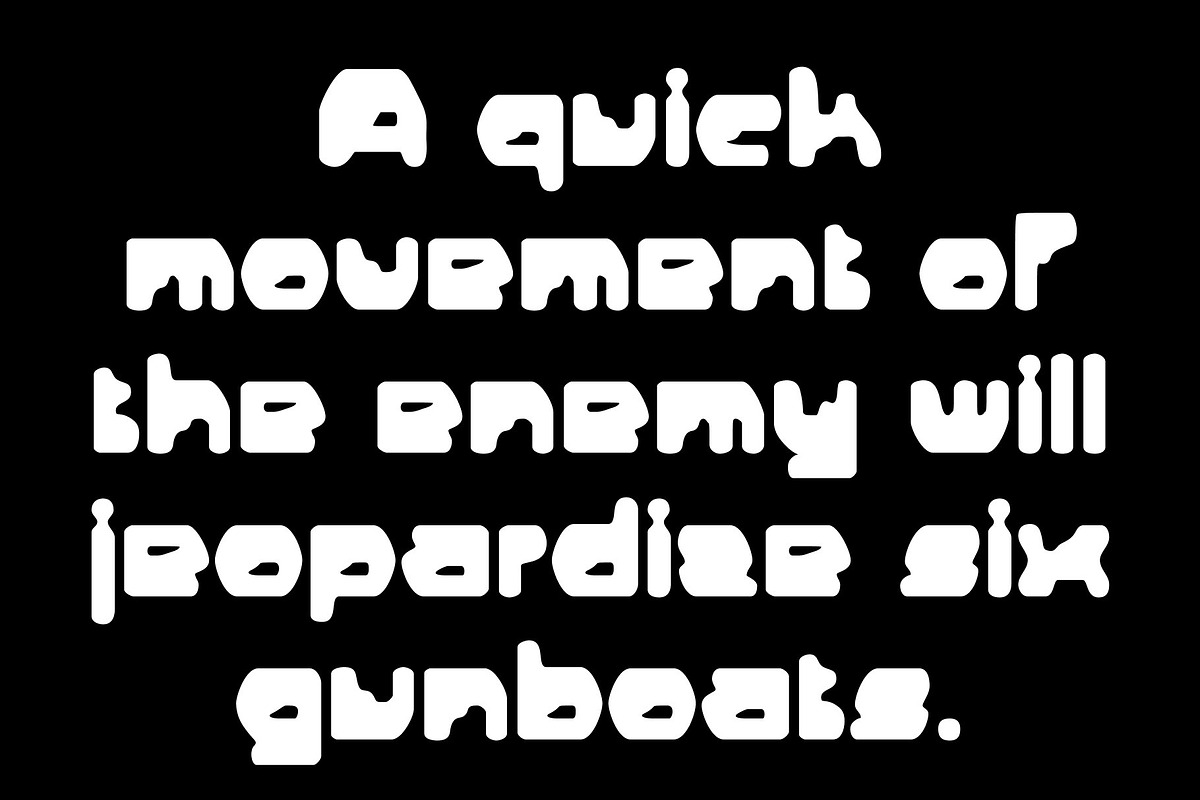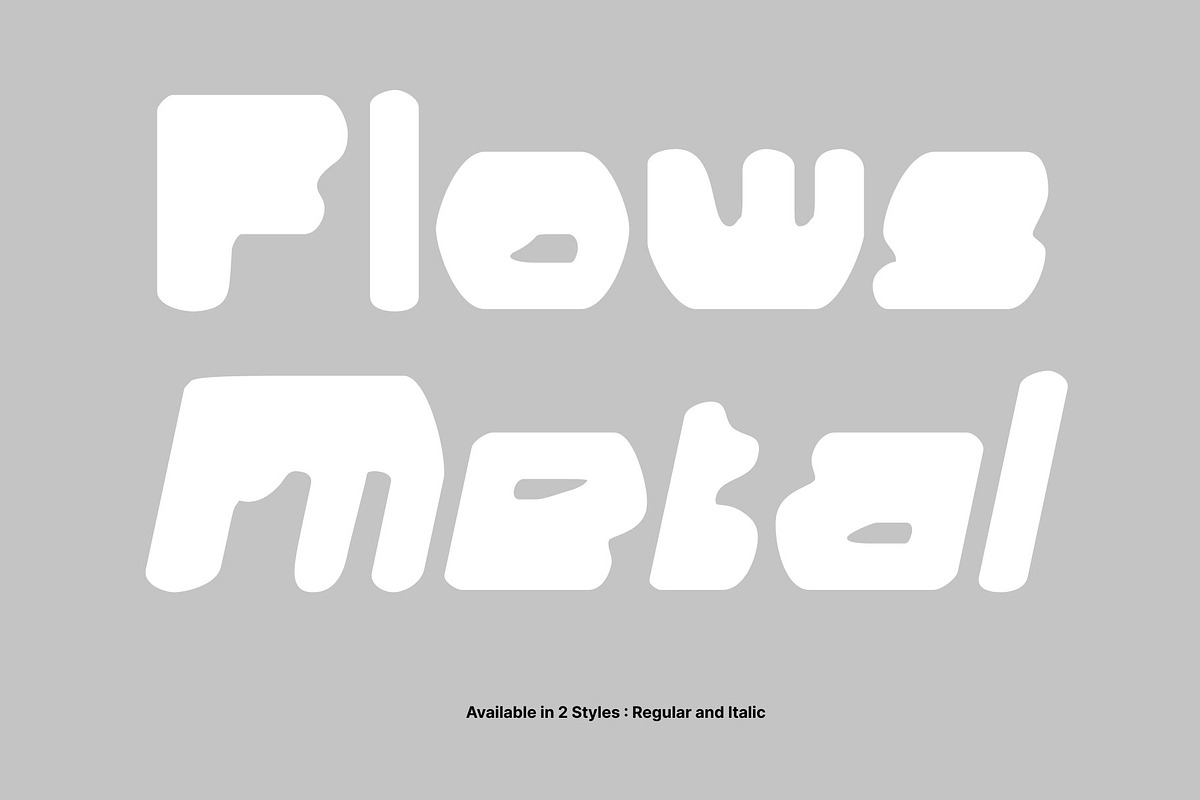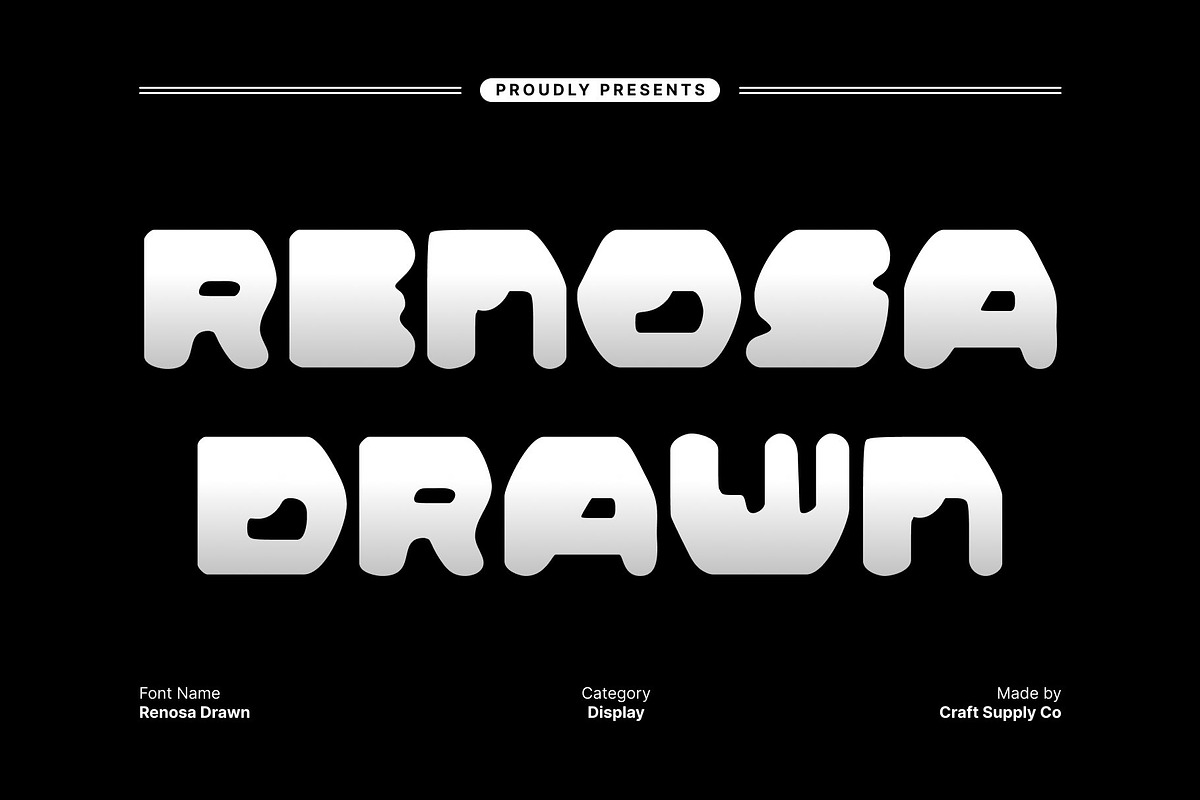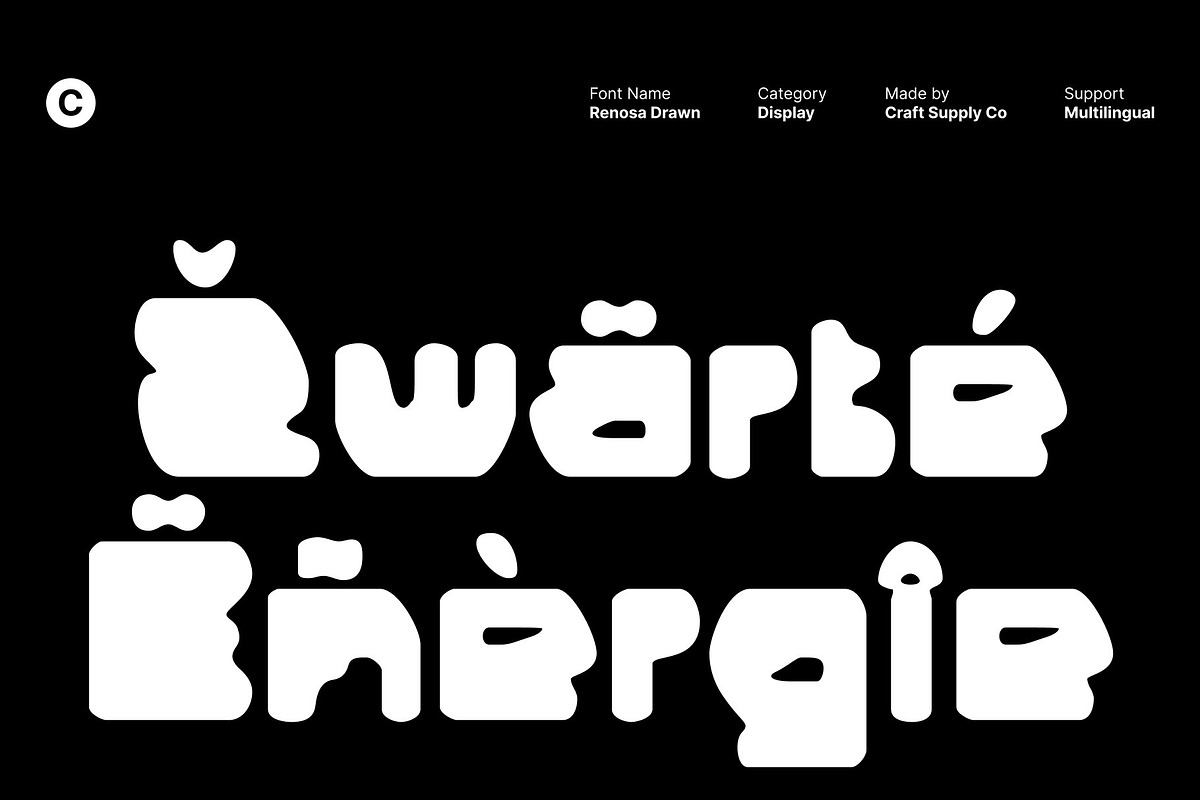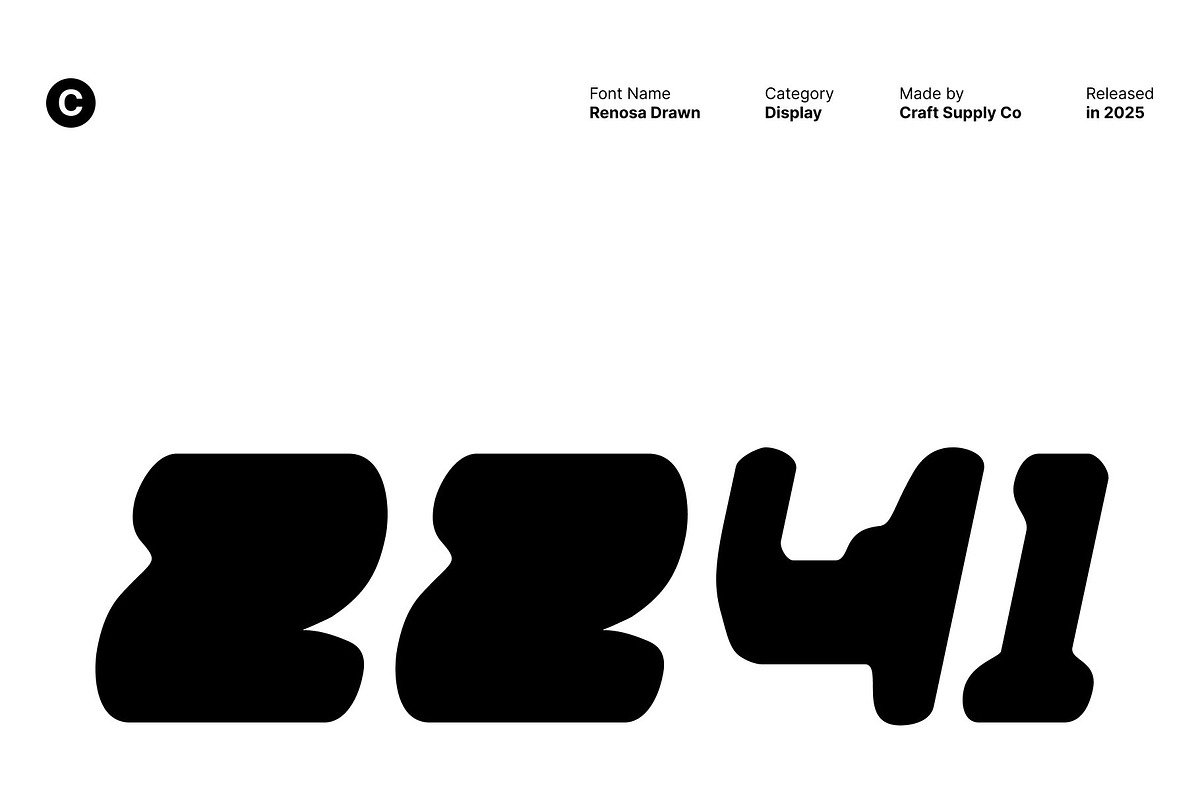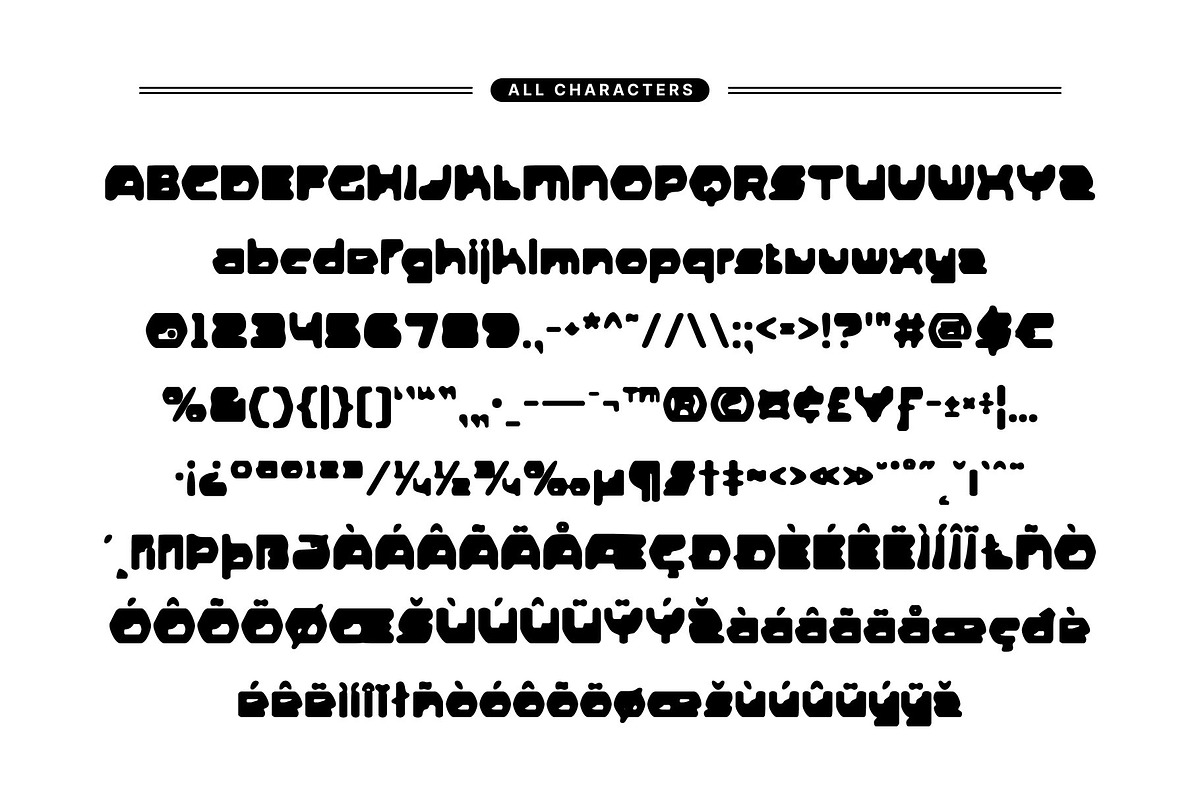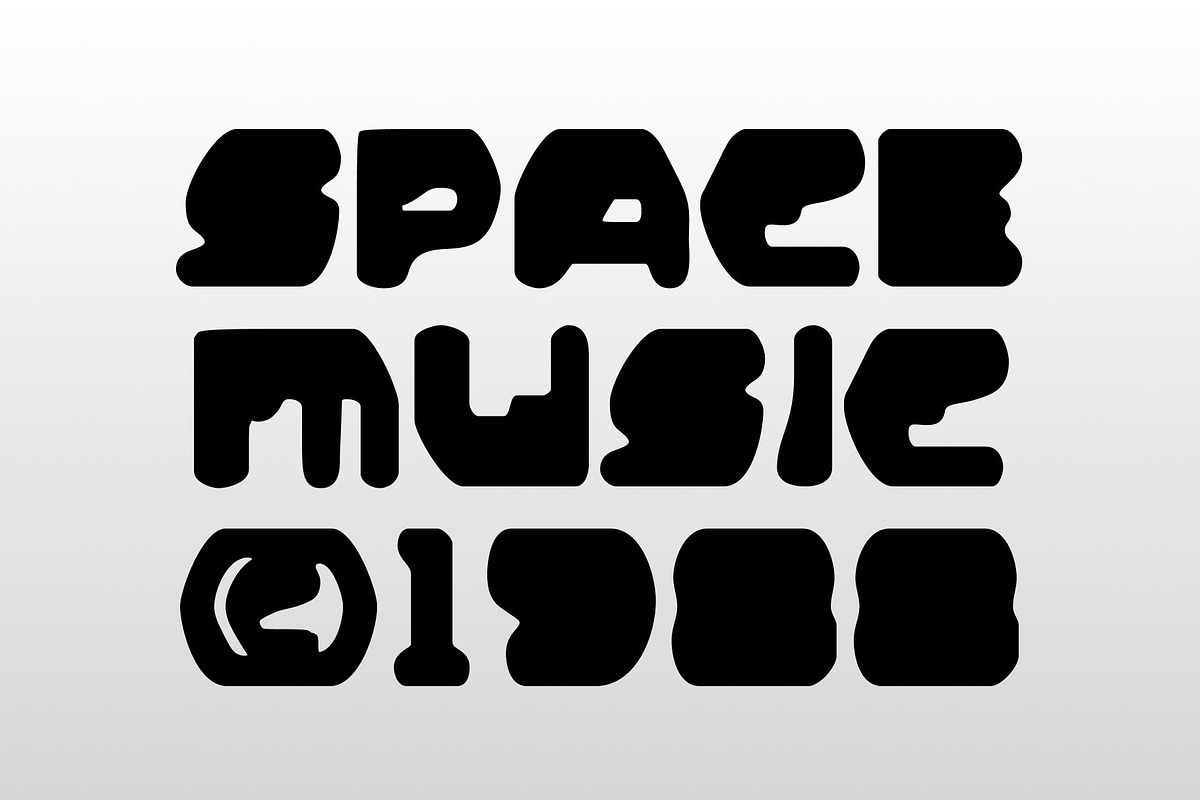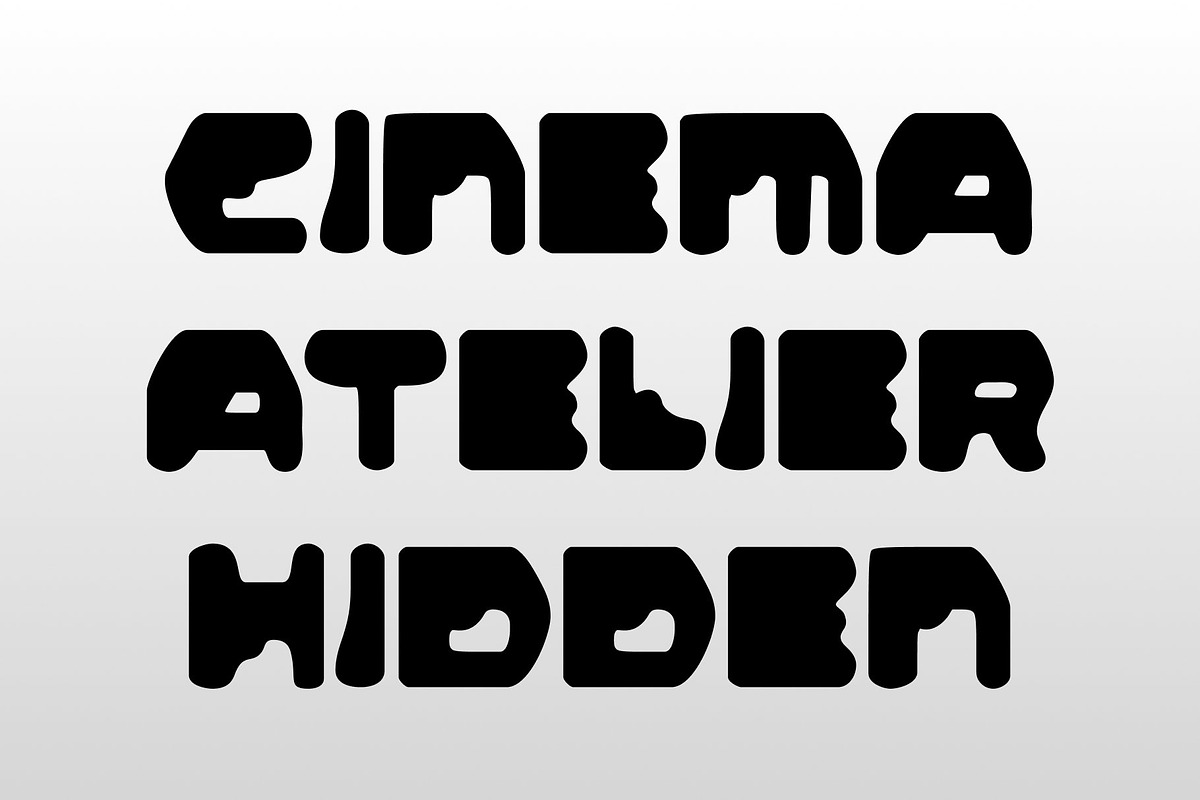
Renosa Drawn
Renosa Drawn – Bold Cyberpunk Font with Futuristic Imperfection
Neon-Tech Structure with a Raw Drawn Finish This font is a bold cyberpunk display that fuses electrifying neon-inspired edges with a strong techno structure. Its powerful shapes and high-impact forms instantly communicate a futuristic attitude, making it a perfect choice for designers aiming to create intense sci-fi atmospheres.
Imperfect Shapes for Uniquely Futuristic Style Unlike typical clean and rigid cyberpunk fonts, this font embraces imperfect contours created through its expressive hand-drawn effect. These subtle irregularities enhance the font’s dynamic feel, adding visual texture and depth. This intentional imperfection creates a bold contrast mechanical precision meets human artistry resulting in a uniquely futuristic look that stands out in any digital or print design.
High Impact for Sci-Fi Games and Tech Branding With its bold weight and sharp structural lines, this font commands attention across various sci-fi and tech-oriented applications. From futuristic video game titles and immersive UI interfaces to tech product branding, its strong presence helps establish worlds filled with neon lights, advanced technology, and cyber energy.
Perfect for Dystopian Covers and Cyberpunk Aesthetics This font thrives in dark, edgy, and dystopian settings, making it an excellent choice for book covers, movie posters, or promotional materials that explore cyberpunk themes. Its bold strokes and glowing-inspired geometry help convey rebellion, tension, and futuristic grit.